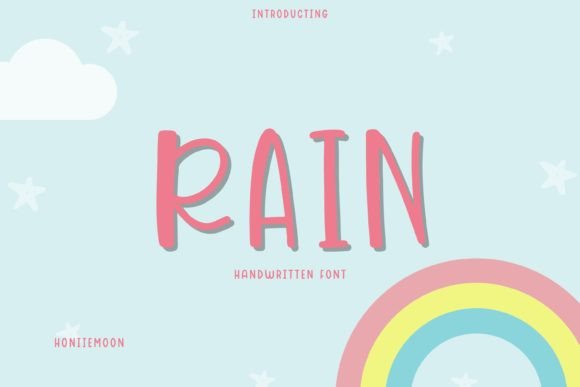
“RAIN” emerges as a cute and playful handwritten font that exudes both charm and joy. This font, with its adorable and lively appearance, serves as an excellent choice to enhance a variety of creative designs. Designed to be colorful and bold, “RAIN” is a display font that invites you to unleash your imagination and breathe life into your projects.
The cuteness and fun factor of “RAIN” are immediately evident, making it a delightful addition to creative endeavors. Whether you’re working on branding, invitations, posters, or any other design project, this font brings a cheerful and jolly vibe that can resonate with audiences of all ages.
The versatility of “RAIN” is boundless, limited only by your imagination. Its playful demeanor makes it suitable for a wide range of applications, from children’s books and merchandise to social media graphics and event promotions. The font’s ability to convey a sense of cuteness and joy makes it an ideal choice for projects that aim to evoke positive emotions.
The colorful and bold nature of “RAIN” adds an extra layer of visual appeal. This makes it a standout choice for display purposes, ensuring that your text elements grab attention and make a statement. Whether used in headers, titles, or logo designs, the font injects vibrancy and energy into your creative ideas.
Incorporating “RAIN” into your design projects is akin to infusing them with a burst of creativity and playfulness. The font becomes a visual catalyst, transforming ordinary designs into lively and spirited creations. As you explore the possibilities of this cute and fun handwritten font, you’ll notice how it brings a dynamic and joyful element to each of your creative ideas.